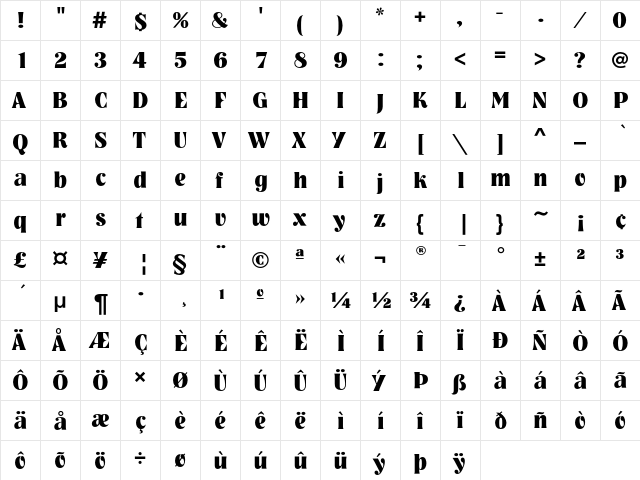
NashvilleEF Bold Font Preview
NashvilleEF Bold
NashvilleEF Bold Font Details
Design Context for NashvilleEF Typeface
NashvilleEF offers clean, dependable letterforms without strong stylistic allegiance, making it a practical choice for designers who need flexibility. The heavy weight commands attention and anchors typographic hierarchies.